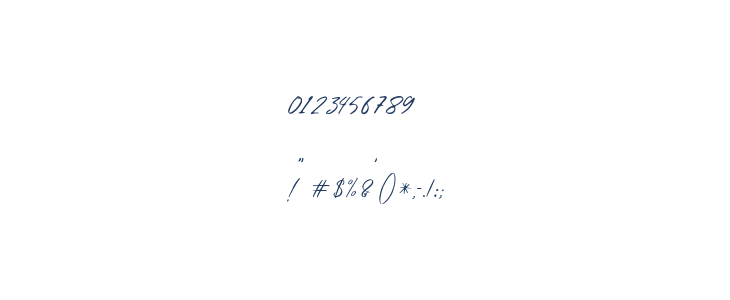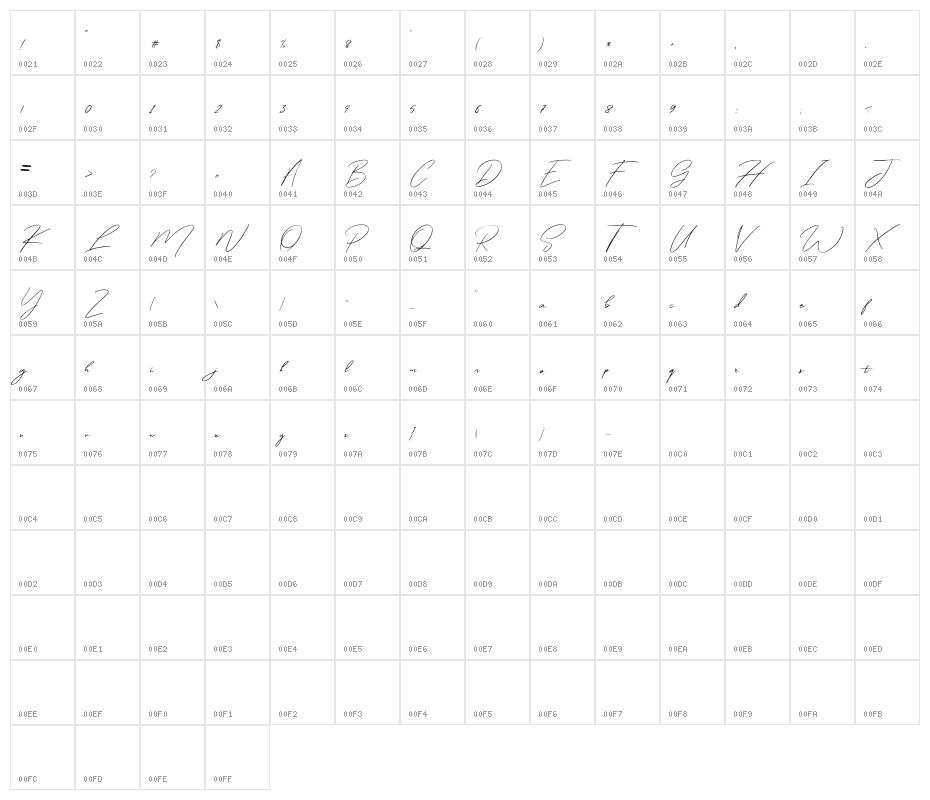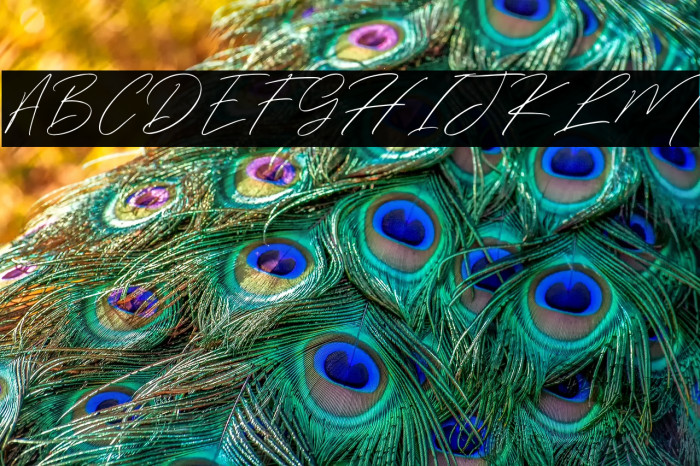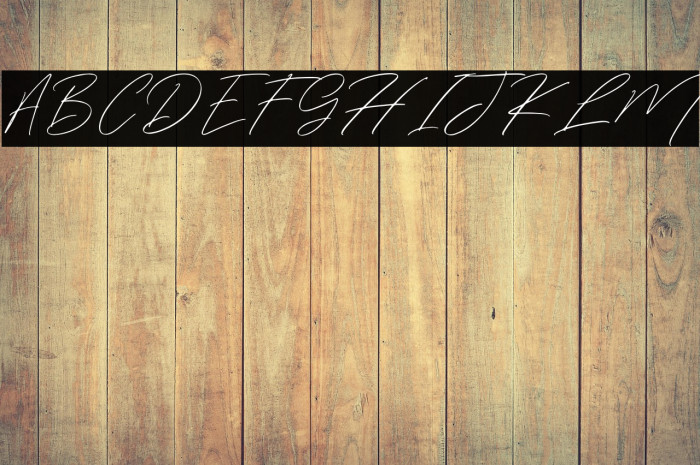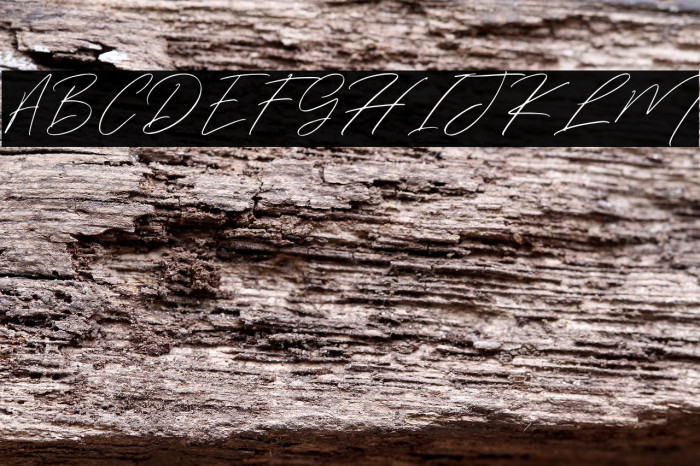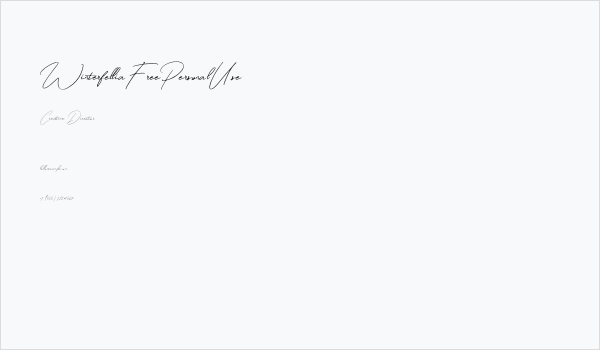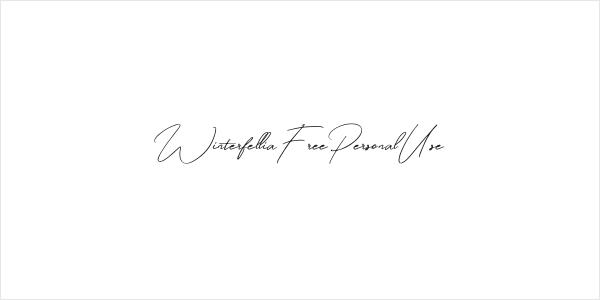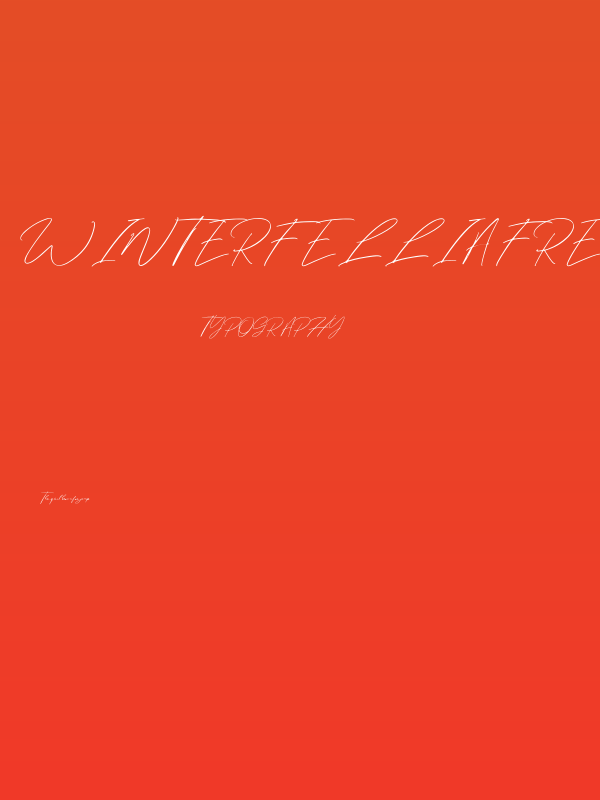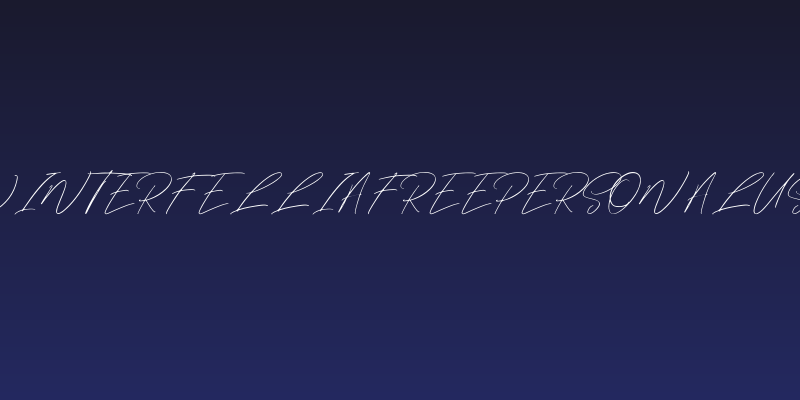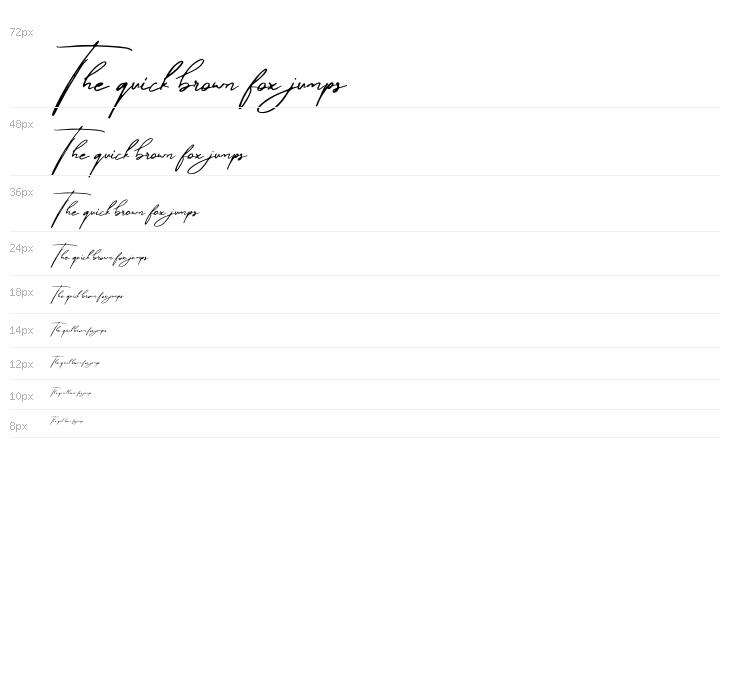
WinterfelliaFreePersonalUse Font
WinterfelliaFreePersonalUse Description
This font exudes elegance and sophistication with its flowing, cursive style. The letters are interconnected, creating a seamless and fluid appearance that mimics the natural movement of handwriting. The uppercase letters are tall and slender, while the lowercase letters maintain a consistent height, adding to the font's graceful aesthetic. The numerals and special characters are designed to complement the letterforms, maintaining the same fluidity and style. This font is perfect for projects that require a personal touch, such as invitations, greeting cards, or branding materials that aim to convey elegance and refinement.
| Overall Style | Elegant, Handwritten |
| Proposed Projects | Ideal for wedding invitations, personal branding, elegant stationery, and greeting cards. |